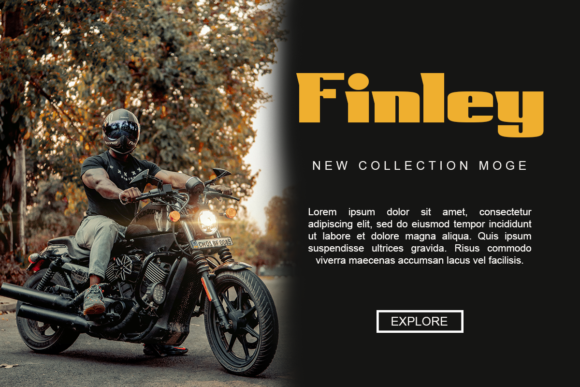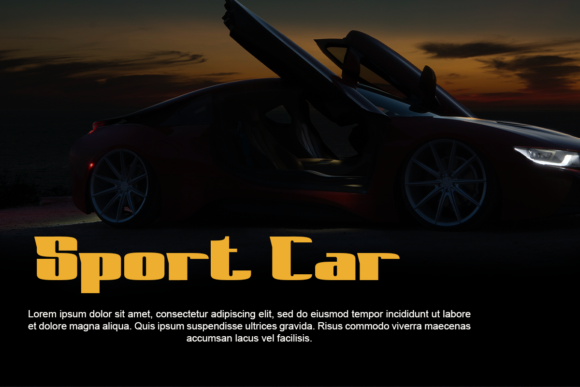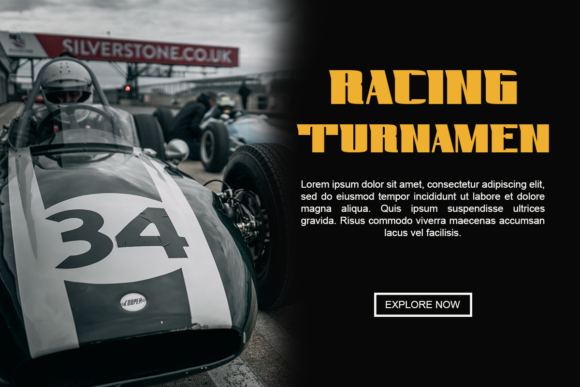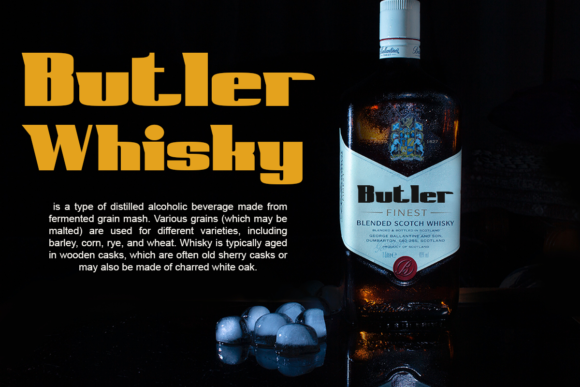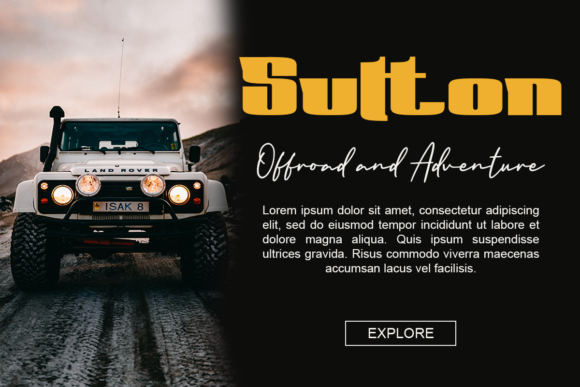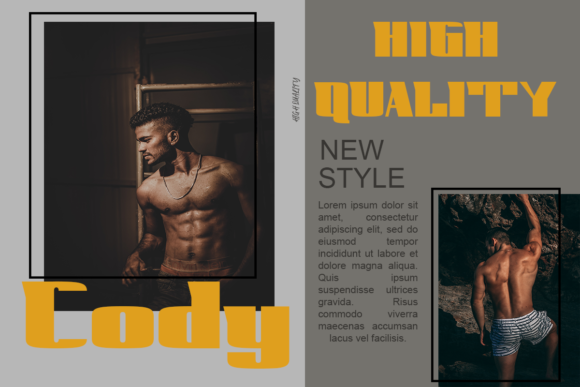
Unleash the Power of Enigma Font: A Bold and Assertive Display Font
Are you tired of using the same old fonts in your designs? Look no further than the Enigma Font, a bold, thick lettered, and assertive display font that’s sure to make your work stand out. With its striking appearance and endless possibilities, Enigma Font is the perfect addition to any designer’s toolkit.
What is Enigma Font?
Enigma Font is a display font designed to make a statement. Its bold and thick letters are perfect for creating eye-catching posters, flyers, and prints that demand attention. The font’s assertive style is ideal for designers who want to add a touch of confidence and authority to their work.
Key Features of Enigma Font
- Bold and Thick Letters: Enigma Font features bold and thick letters that are sure to grab attention.
- Assertive Style: The font’s assertive style makes it perfect for designers who want to add a touch of confidence and authority to their work.
- Endless Possibilities: With Enigma Font, the possibilities are endless. Use it for posters, flyers, prints, and more to create stunning designs.
- Easy to Read: Despite its bold style, Enigma Font is easy to read, making it perfect for headlines and titles.
Why Use Enigma Font?
There are many reasons why designers and crafters should consider using Enigma Font in their work. Here are just a few:
- Add a Touch of Drama: Enigma Font is perfect for adding a touch of drama to your designs. Its bold and assertive style is sure to make your work stand out.
- Perfect for Headlines and Titles: The font’s bold style makes it perfect for headlines and titles. Use it to create eye-catching headings that grab attention.
- Versatile: Enigma Font is versatile and can be used for a wide range of design projects, from posters and flyers to prints and more.
- Easy to Pair: The font is easy to pair with other fonts, making it perfect for designers who like to experiment with different font combinations.
How to Use Enigma Font
Using Enigma Font is easy. Here are a few tips to get you started:
- Use it for Headlines and Titles: Enigma Font is perfect for headlines and titles. Use it to create eye-catching headings that grab attention.
- Experiment with Different Colors: The font looks great in a variety of colors. Experiment with different colors to find the one that works best for your design.
- Pair it with Other Fonts: Enigma Font is easy to pair with other fonts. Try pairing it with a sans-serif font for a modern look or a serif font for a more traditional look.
Here are a few tips and tricks to help you get the most out of Enigma Font:
- Use it Sparingly: While Enigma Font is bold and assertive, it can be overwhelming if used too much. Use it sparingly to create a focal point in your design.
- Adjust the Size: Experiment with different sizes to find the one that works best for your design.
- Try Different Effects: Try adding different effects, such as shadows or outlines, to give your text a unique look.
Enigma Font is a bold, thick lettered, and assertive display font that’s perfect for designers and crafters who want to add a touch of drama to their work. With its endless possibilities and easy-to-use style, Enigma Font is sure to become a staple in any designer’s toolkit. So why wait? Download Enigma Font today and start creating stunning designs that demand attention.